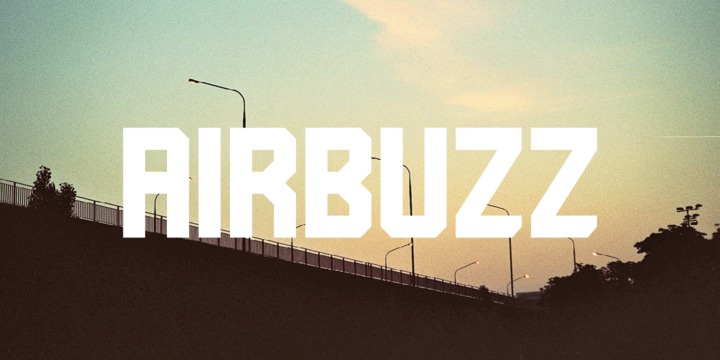
Airbuzz is a typeface created by Spinefonts in Warsaw, Poland. The idea was to create something between grotesk and ‘lcd’ typefaces; something which is strong and condensed. Airbuzz looks best in large sizes (30+ pts). You may find it useful for posters, titling, infographics, signage and corporate identity.
Airbuzz features only uppercase characters.